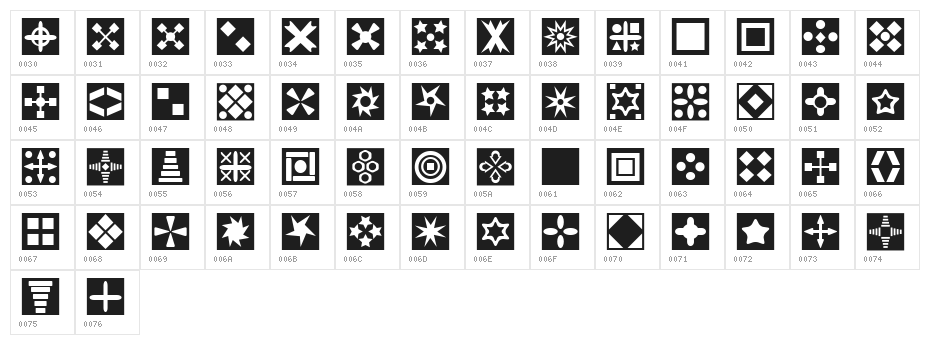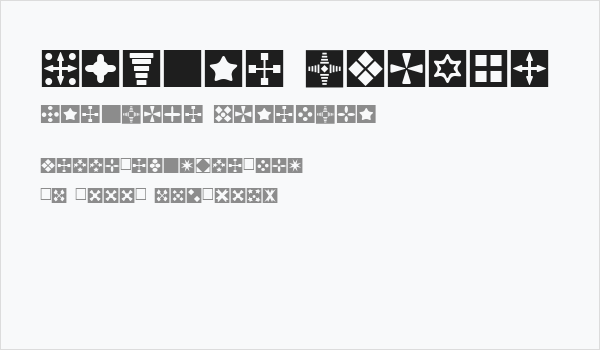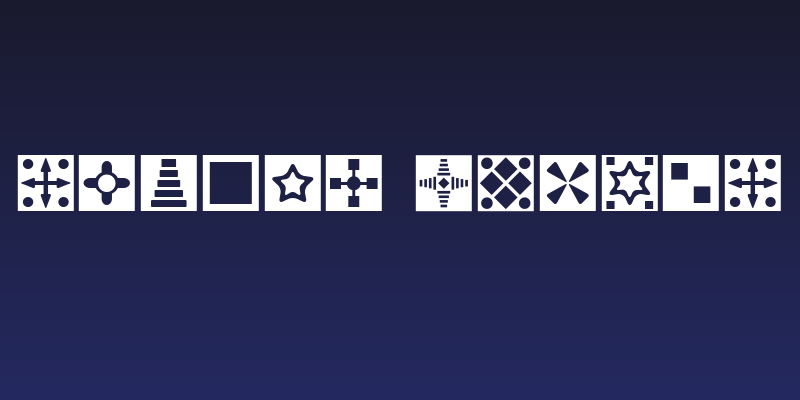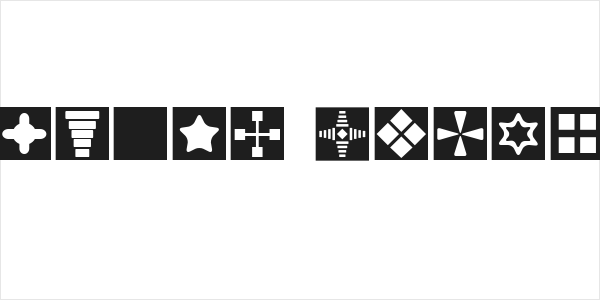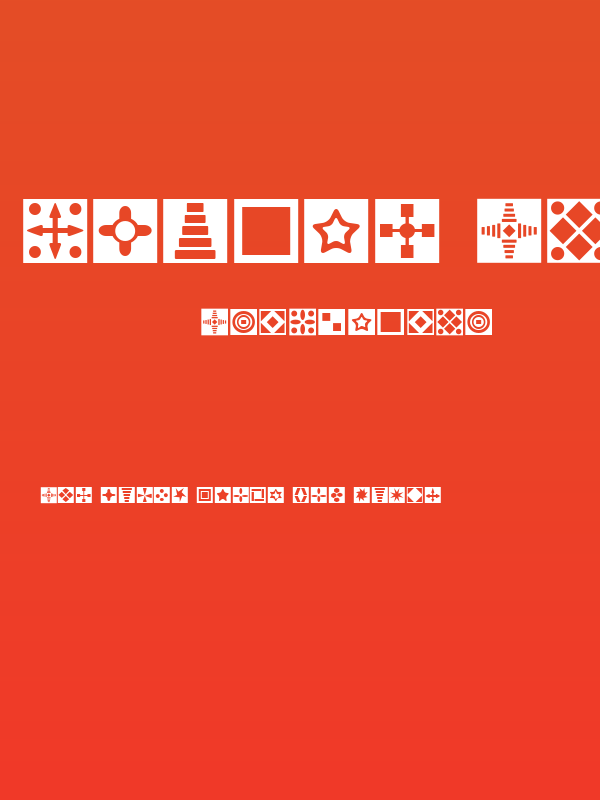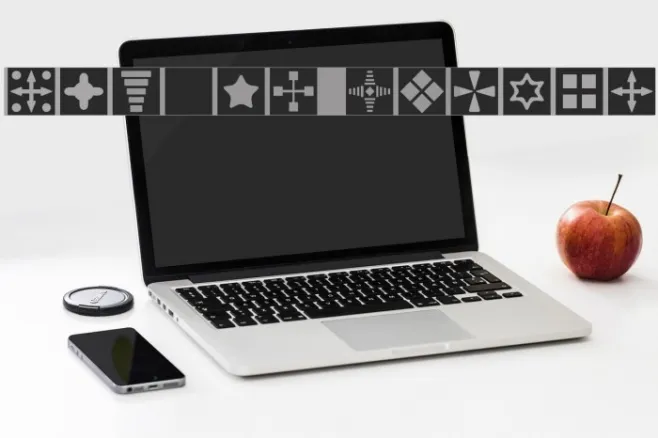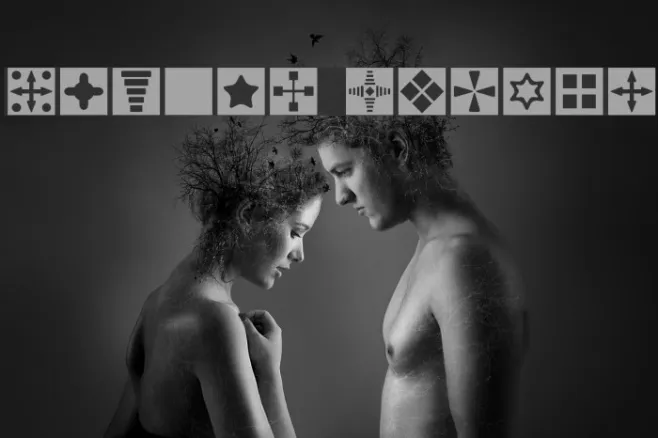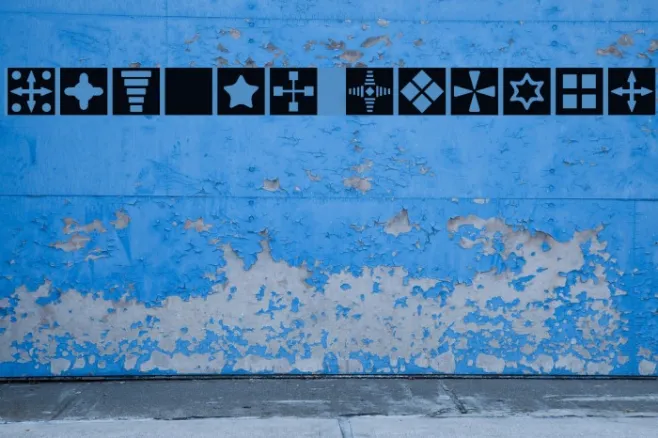
Square Things Font
Square Things Description
A decorative display font composed of geometric shapes and symbols, each character contained within a square, featuring high contrast between black and white elements and a playful, abstract style.
| Overall Style | Decorative, Modern, Abstract |
| Use Case | Logos, Headlines, Posters, Icons |
| Proposed Projects | Posters, digital art, branding for creative industries, icons, game design, decorative headings. |